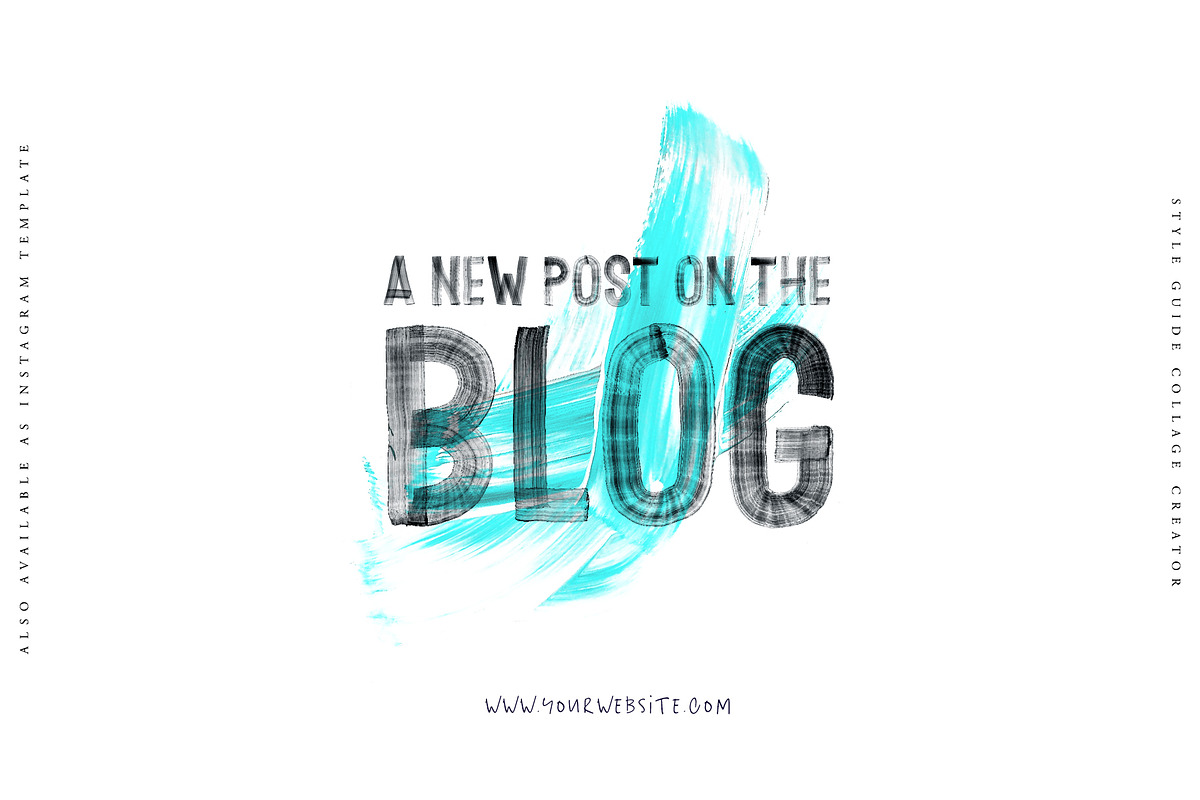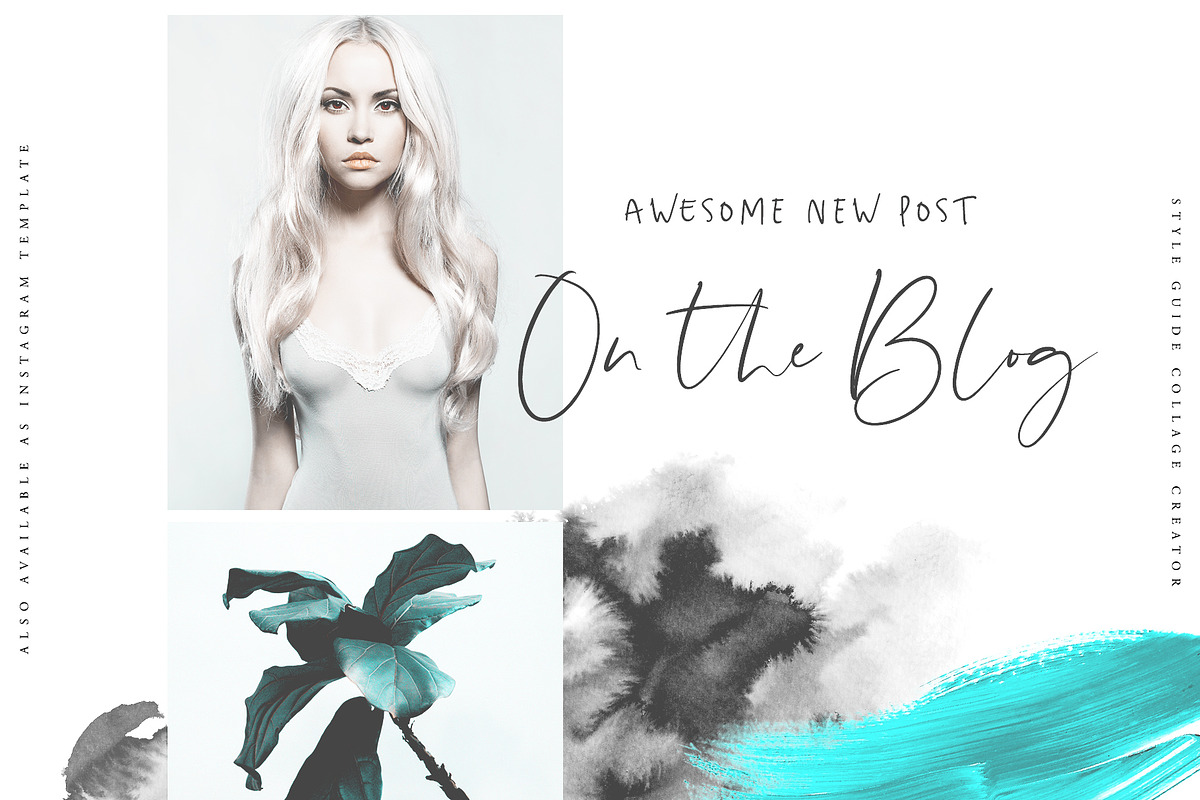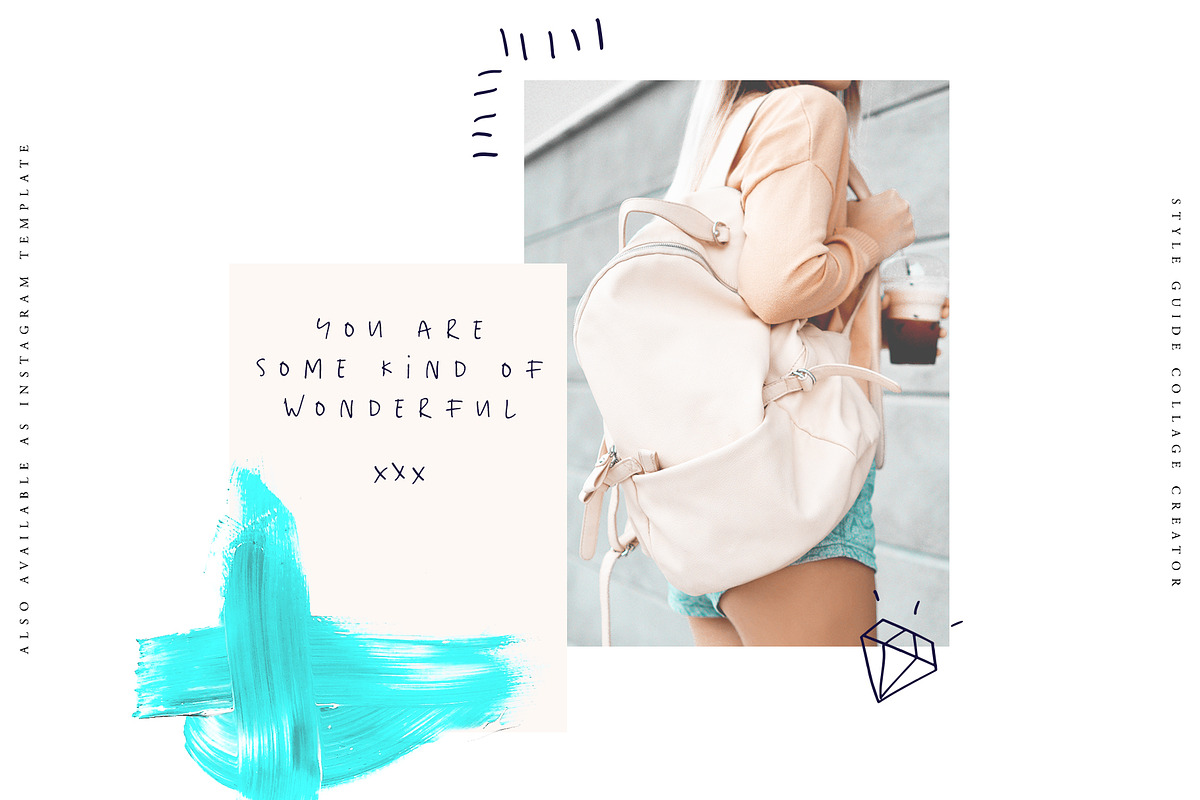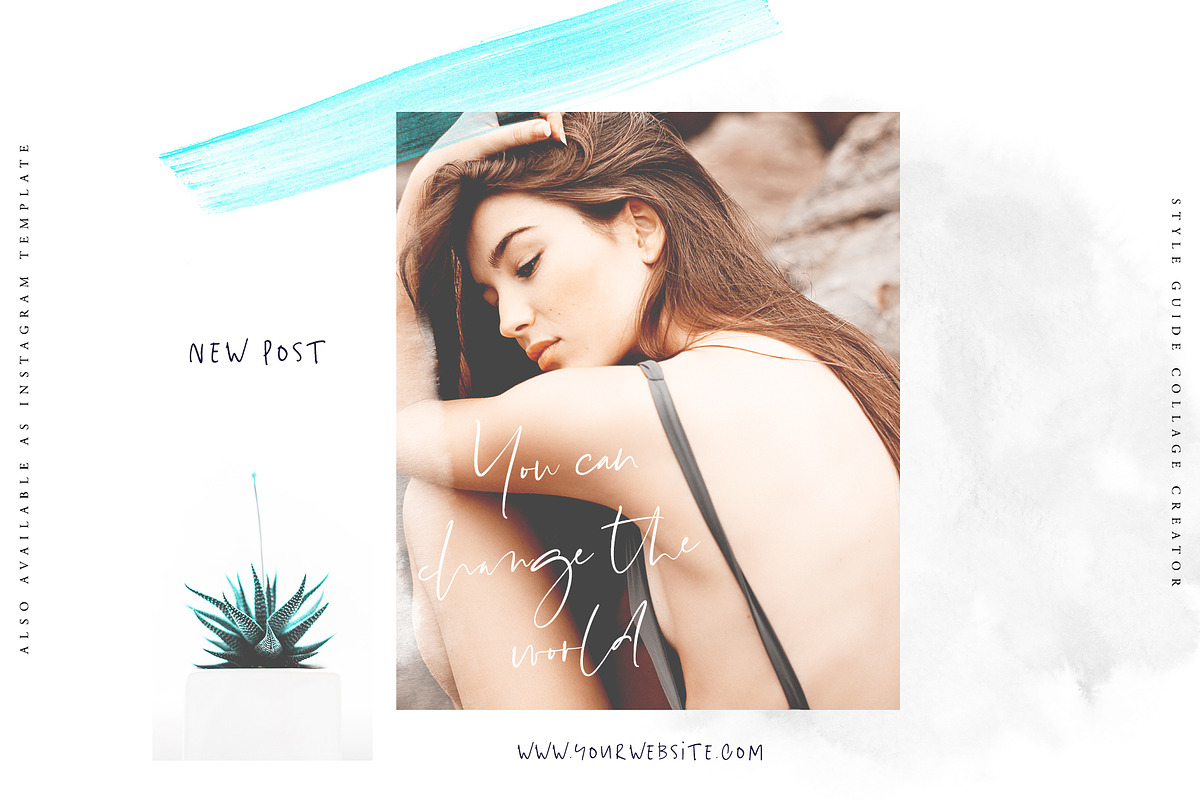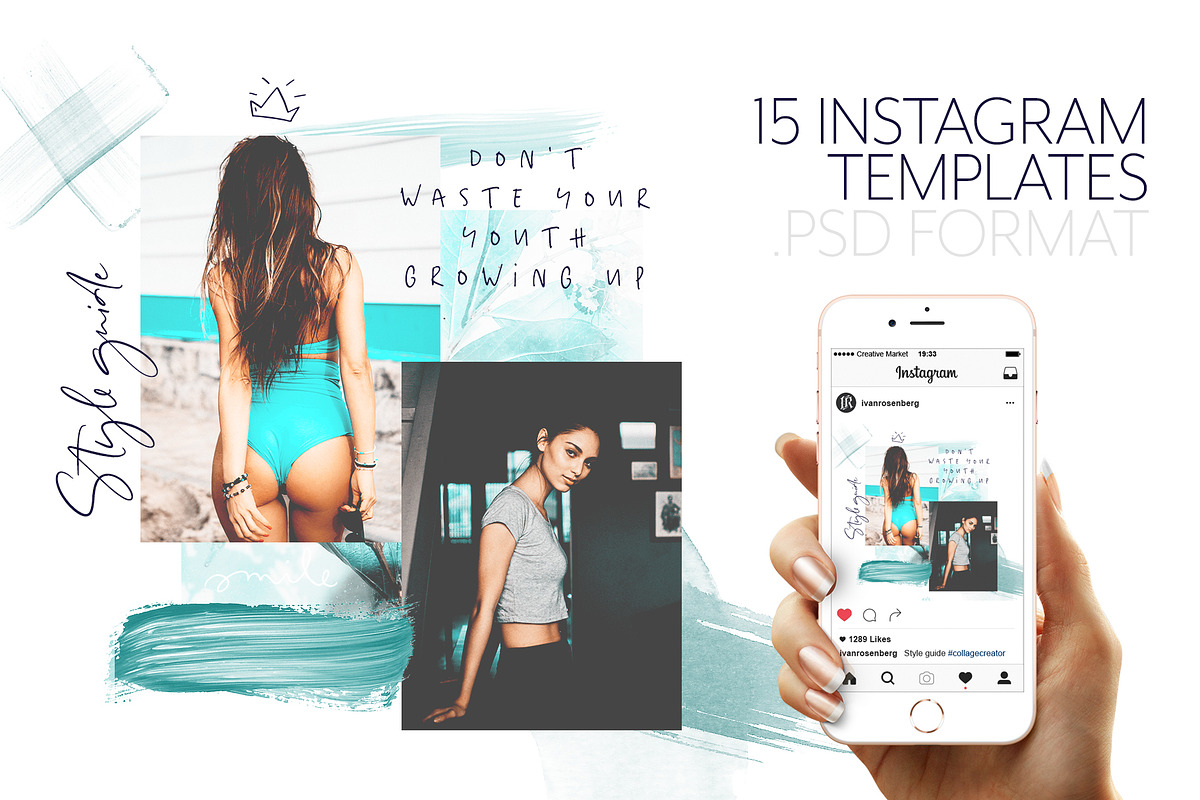
Style guide Font Collection
Making collages has never been easier before. I was surprised how easy is to create a collage with this package. That's the reason why I've created 15 easy-to-edit psd templates for your holidays photos. Using this pack you can create an unlimited awesome collages for your social media, blog or whatever you want.
Style guide Script is a set of Upper and Lowercase characters, numerals and lot of punctuation glyphs, and 78 Ligatures.
Style guide Marker is a set of Upper and Lowercase characters, numerals and lot of punctuation glyphs, and 13 Ligatures.
Style guide OpenSVG Font A high definition OpenSVG brush font with realistic texture (You need to be using Photoshop CC 2017.1.1, Illustrator CC 2018 or later)
Style guide Script and Style guide Marker contains following characters: AÁĂÂÄÀĀĄÅÃÆBCĆČÇDÐĎĐEÉĚÊËĖÈĒĘFGĢHIÍÎÏÌĪĮJKĶLĹĽĻŁMNŃŇŅŊÑOÓÔÖÒŐŌØÕŒPÞ QRŔŘŖSŚŠŞTŦŤŢUÚÛÜÙŰŪŲŮVWẂŴẄẀXYÝŶŸỲZŹŽŻ aáăâäàāąåãæbcćčçdðďđeéěêëėèēęfgģhiíîïìīįjkķlĺľļłmnńňņŋñoóôöòőōøõœpþqrŕřŗsśšş ßtŧťţuúûüùűūųůvwẃŵẅẁxyýŷÿỳzźžż
Style guide SVG is English-only. (but you can find all western and central europe characters in attached psd file)